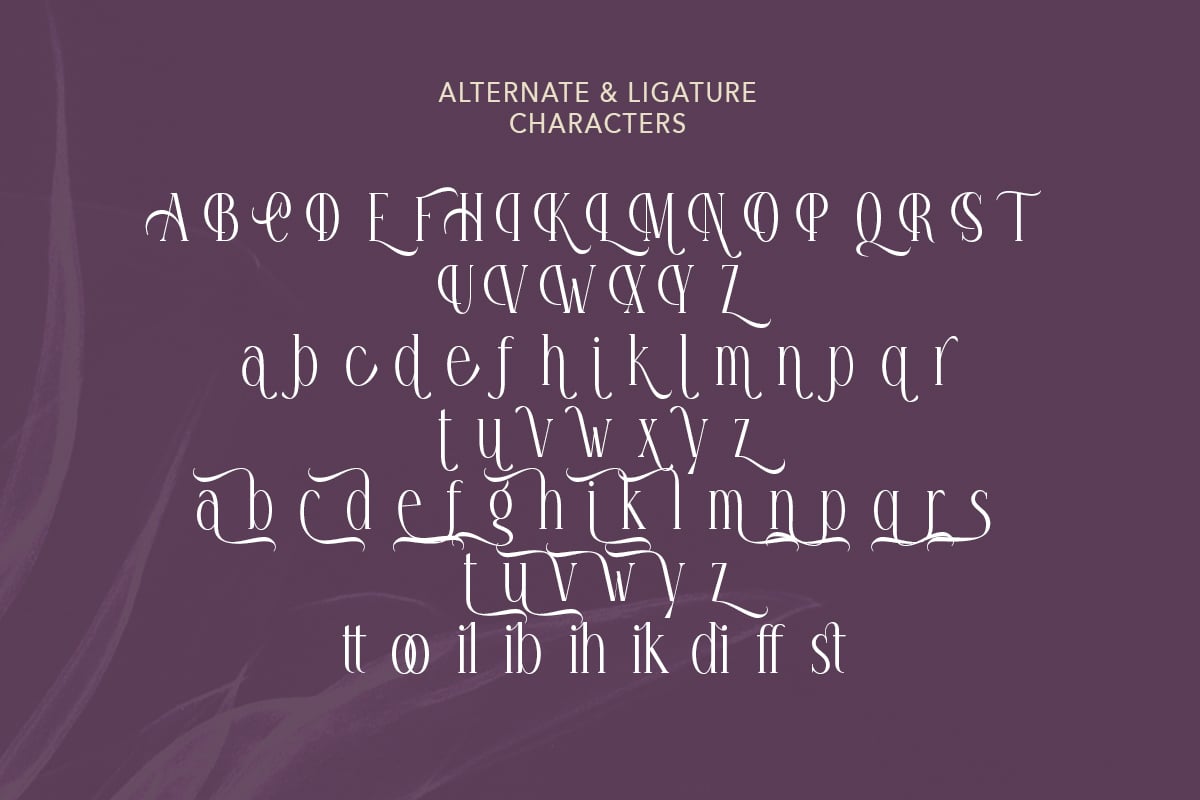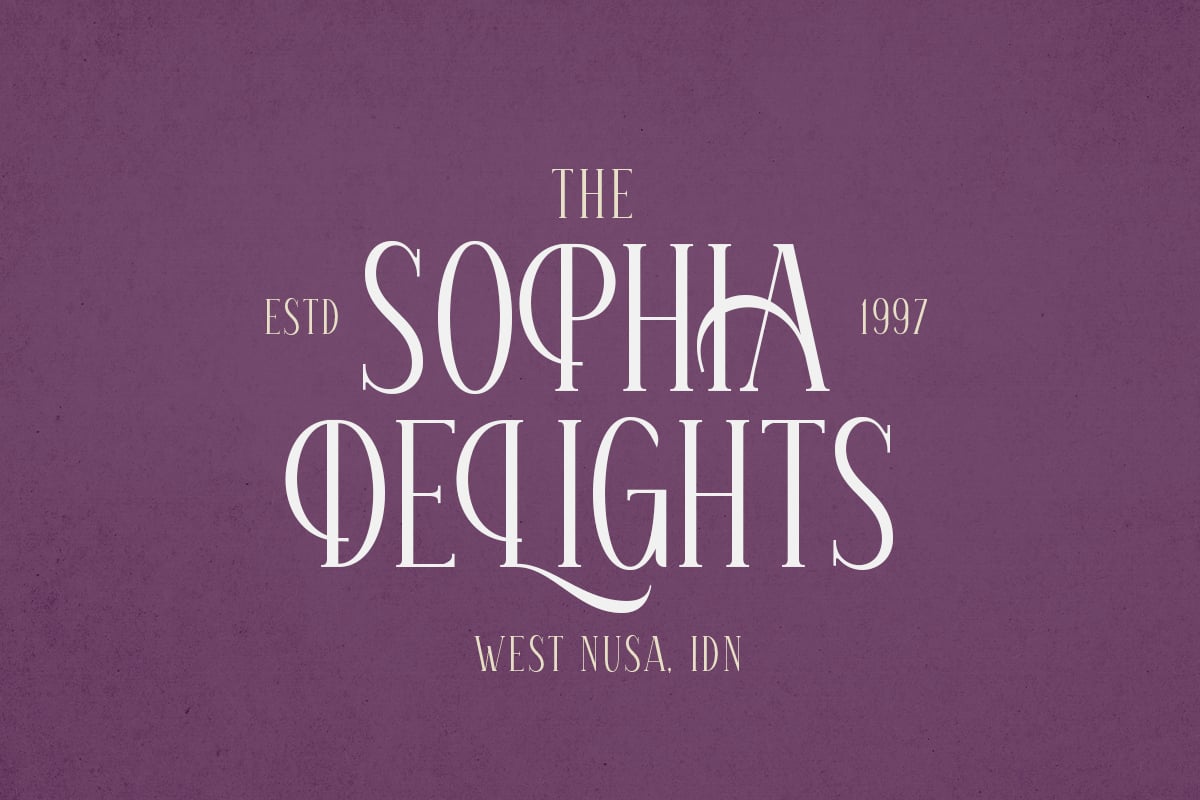
Honey Promise – Stylish Tall Serif Font
Honey Promise – Stylish Tall Serif Font is a versatile typeface ideal for various projects, including logos, branding, posters, blog headers, advertisements. The free version includes a full set of uppercase and lowercase letters, available in OTF format.